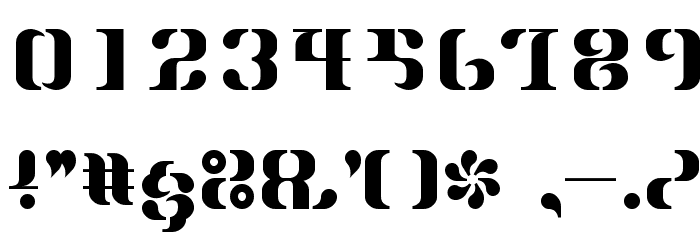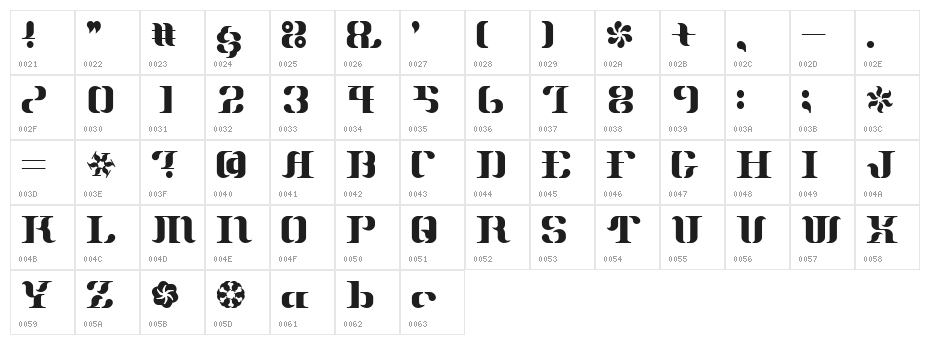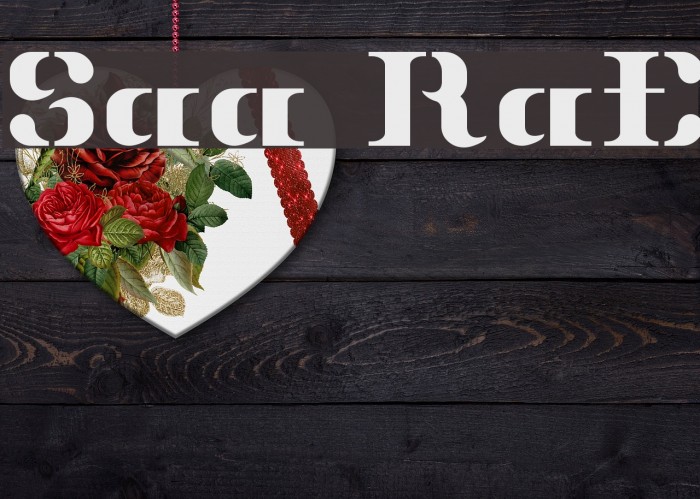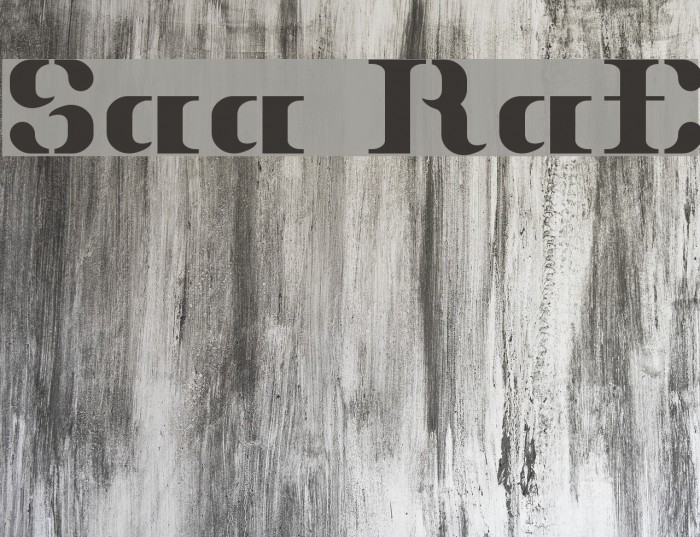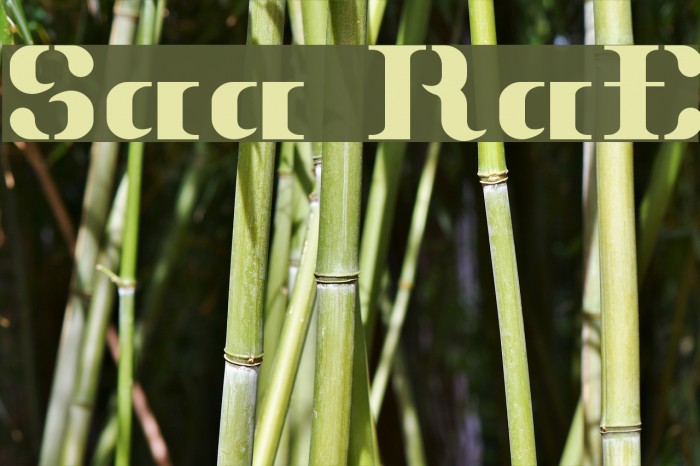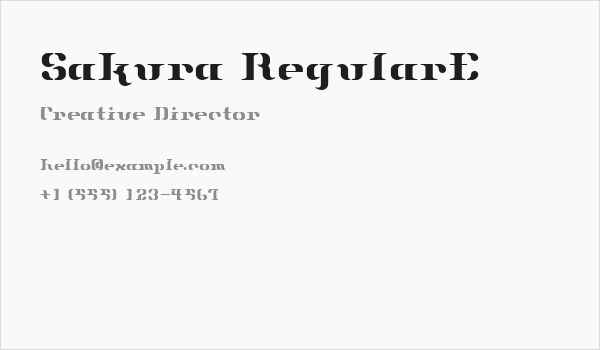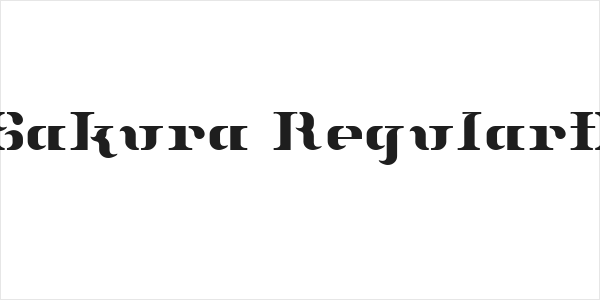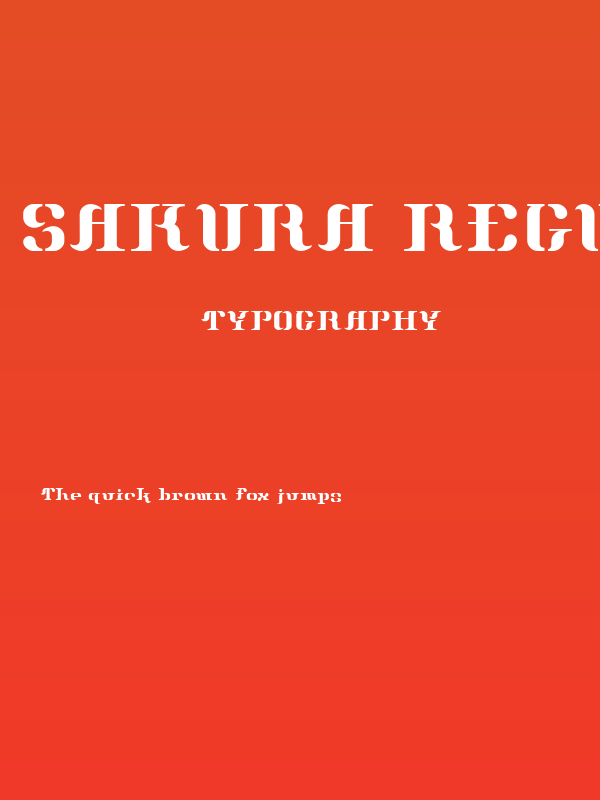
Sakura RegularE Font
Sakura RegularE Description
This font features a bold and decorative style with a unique stencil-like appearance. The characters are crafted with distinct cutouts, giving them a modern and artistic flair. The uppercase letters are particularly striking, with strong vertical lines and rounded edges that create a sense of movement and dynamism. The lowercase letters maintain the same boldness, ensuring consistency across the typeface. Numbers and special characters are equally bold, making them stand out in any design. This font is ideal for projects that require a strong visual impact.